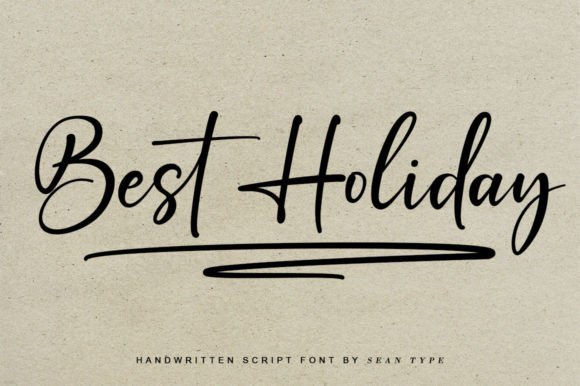
The Perfect Script for the Most Wonderful Time of the Year
There’s something magical about designing for the holiday season – the twinkling lights, the cozy atmosphere, and the endless possibilities for creativity. As you sit at your desk, surrounded by ornaments and festive tunes, you know that the right font can make all the difference. This is where the Best Holiday Font comes in – a beautiful, classic script that’s perfect for capturing the essence of the season.
With its smooth flow of letters and timeless elegance, the Best Holiday Font is a valuable addition to any designer’s toolkit. Whether you’re working on a holiday card, a gift tag, or a festive website, this font is sure to add a touch of sophistication and whimsy to your project. And with its PUA encoding, you’ll have access to all the glyphs and swashes you need to create something truly special.
Best Holiday Font Key Features
- Unique Characteristics: The font features a distinctive holiday-themed design, with intricate patterns and ornaments that evoke a festive atmosphere.
Designer Review: “Best Holiday Font”
Overall, I’m underwhelmed by the “Best Holiday Font”. While it has some redeeming qualities, it falls short in several areas. ✨ The font’s festive feel and cheerful vibe are perfect for holiday-themed projects, making it a great choice for Christmas cards, invitations, and decorations. The font’s playfulness and energy are contagious, and it’s sure to put a smile on your customers’ faces.
However, there are some limitations to consider. ⚠️ The font’s readability suffers when used in large blocks of text or at small sizes. The characters can become blurry and difficult to decipher, making it hard to use for longer pieces of content. Additionally, the font’s design feels a bit generic and lacks originality, which may not set your project apart from others.
Here are some specific pros and cons:
- ✨ Great for holiday-themed projects
- ✨ Playful and energetic vibe
- ⚠️ Poor readability at large block sizes or small sizes
- ⚠️ Generic design lacks originality
Overall, I would recommend the “Best Holiday Font” for small-scale projects or decorative elements, but it may not be the best choice for longer pieces of content or more complex designs.
Use the Best Holiday Font to add a festive touch to your holiday designs. Experiment with different font sizes, colors, and styles to create a unique look.
The Best Holiday Font is perfect for:
- Christmas cards and invitations
- Holiday party flyers and posters
- New Year’s Eve decorations and signs